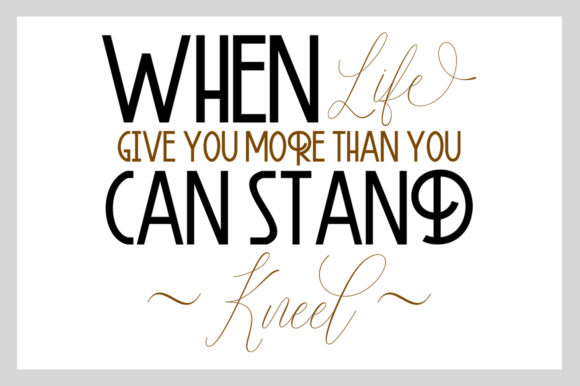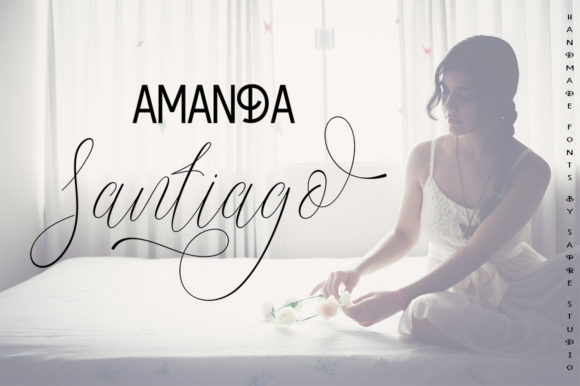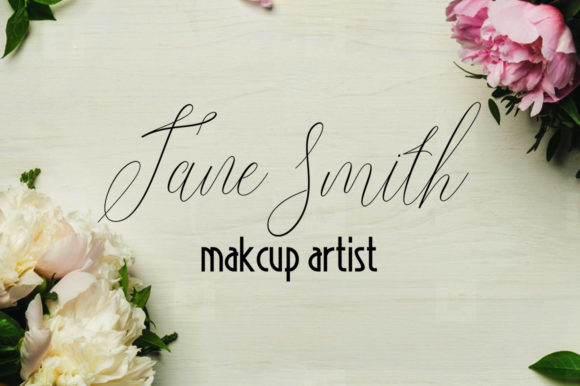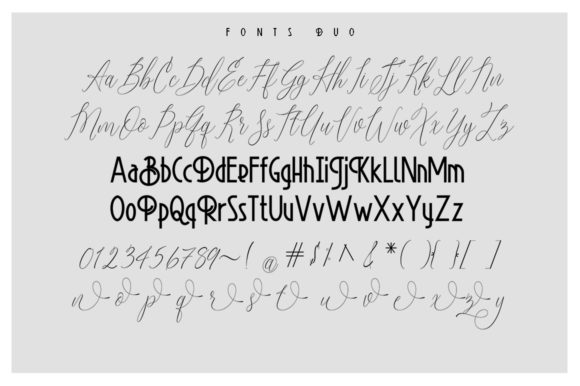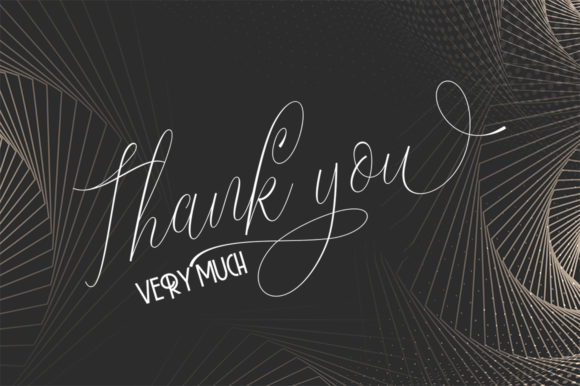
Introduction to Platinum Evelyn Duo Font Font
Fonts play a crucial role in design, and the Platinum Evelyn Duo Font font is a typeface that brings both character and versatility to any project. Whether you’re working on a branding project, a website, or a print design, the Platinum Evelyn Duo Font font offers a unique style that can elevate your work.
Platinum Evelyn is a stunningly delicate and charming font dup with a personal twist.
These two fonts will turn any design idea into work of art .
Key Features of Platinum Evelyn Duo Font Font
Why Choose Platinum Evelyn Duo Font Font?
The Platinum Evelyn Duo Font font is more than just a typeface – it’s a design tool that helps you communicate your message with style and clarity. Its unique character set and versatile design make it suitable for a wide range of applications, from elegant invitations to bold headlines.
With its carefully crafted letterforms and balanced proportions, the Platinum Evelyn Duo Font font ensures readability and visual appeal across all mediums.
What makes Platinum Evelyn Duo Font font special?
The Platinum Evelyn Duo Font font stands out with its unique design, exceptional readability, and versatility across various design applications.